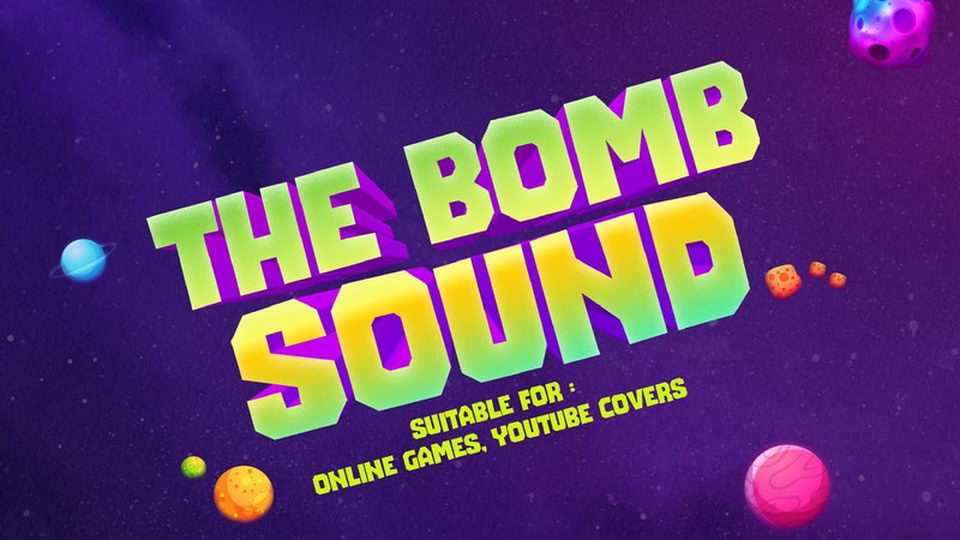
Download The Bomb Sound font, the display typeface with a blocky shape with powerful, quirky, and strong sharp corner. The Bomb Sound emphasize on every word you put on the screen.